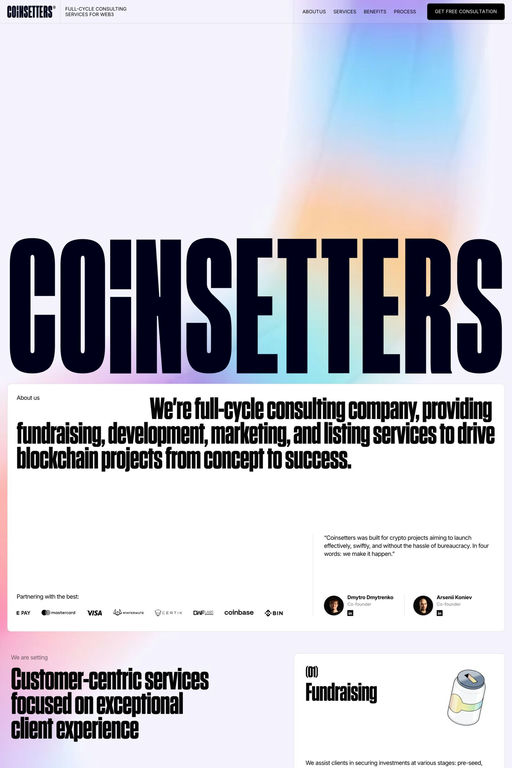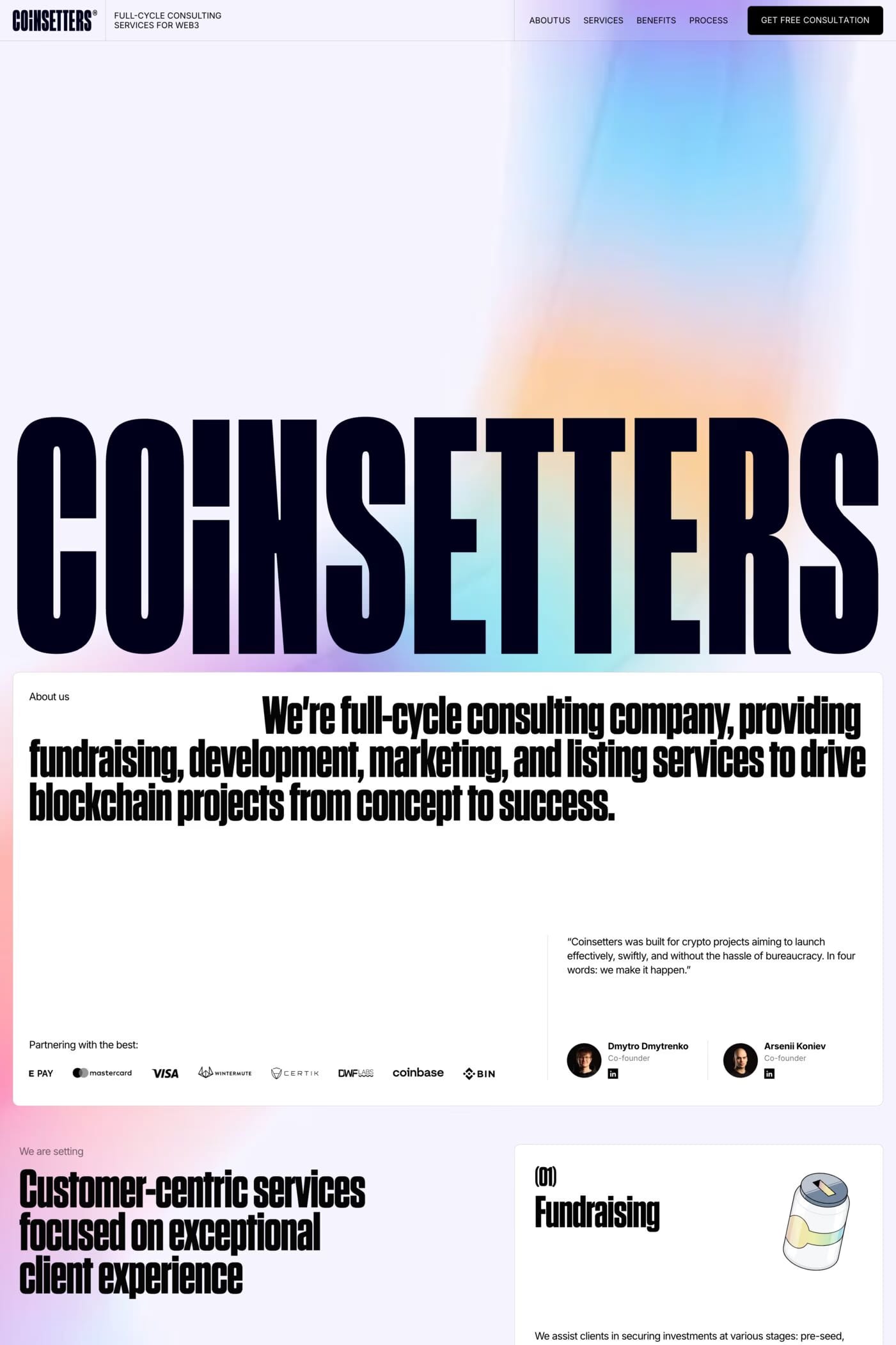
Tungsten is a sans-serif typeface from Hoefler & Co..
That rarest of species, Tungsten is a compact and sporty sans serif that’s disarming instead of pushy — not just loud, but persuasive.